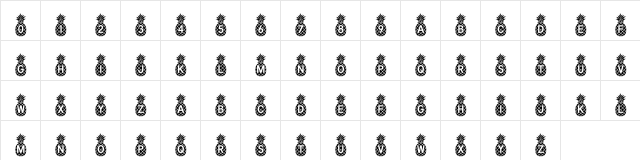
Pineapple_Mono Regular
Design Context for Pineapple_Mono Typeface
Pineapple_Mono uses fixed-width spacing throughout, giving it the structured, systematic character associated with coding environments and technical documentation.
Well-suited to data-driven dashboards, coding tutorials, and any design that wants to reference the world of programming.